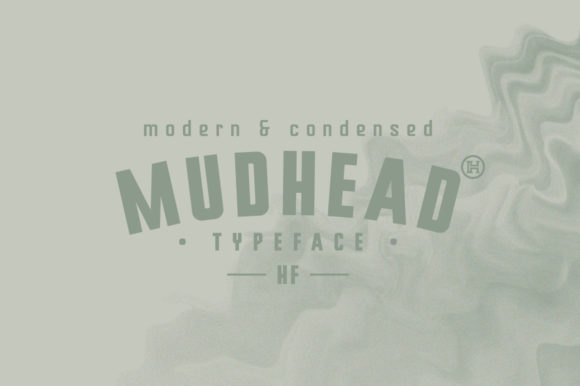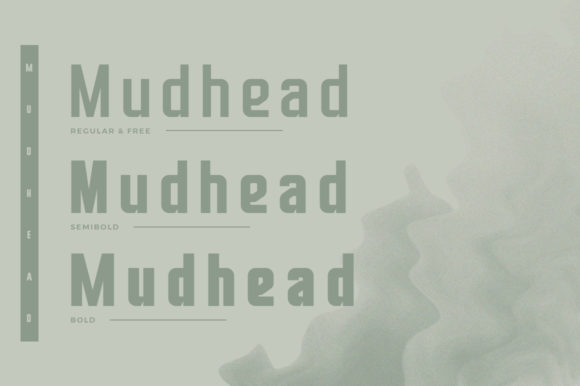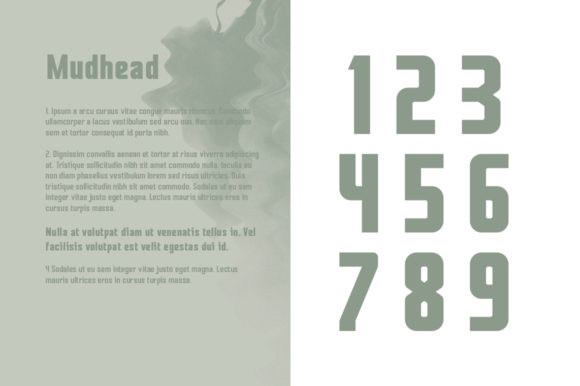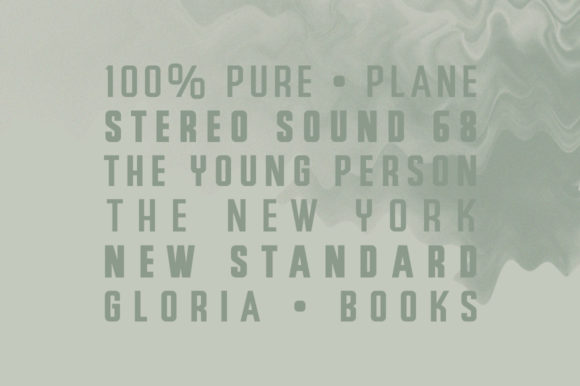
Mudhead Font: Modern Bold Sans Serif for Eye-Catching Logo Design
About the Mudhead Font
Introducing the Mudhead Font, a beautifully crafted typeface designed to elevate your creative projects. Mudhead is an incredible sans serif font with an industrial feel. It will turn any design idea into a stand out!
Mudhead’s strong, geometric forms make it ideal for headlines, logos, and short impactful text on posters or packaging. Its industrial aesthetic lends itself well to brands focused on construction, mechanics, or technology. Avoid using it for body text or lengthy paragraphs; its boldness can be overwhelming for extended reading.
Pairing Mudhead effectively depends on the desired emphasis. For a rugged yet refined look, consider a clean serif like Garamond or a neutral sans-serif like Lato. To amplify its industrial feel, pair it with a geometric sans-serif such as Futura. A contrasting script font could add a touch of unexpected elegance for specific design elements.
Mudhead projects a bold, confident, and slightly rebellious personality. Its strength and visual weight ensure immediate impact.
Mudhead Font Example